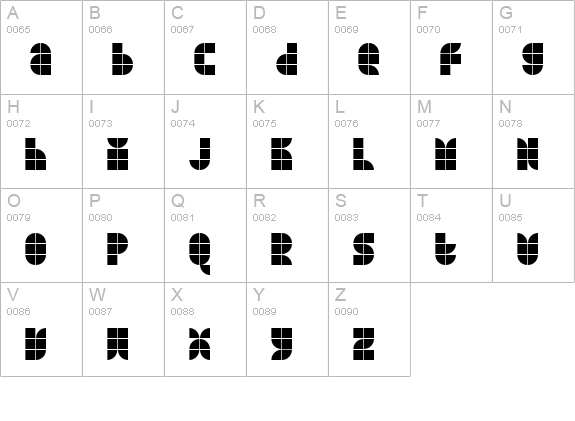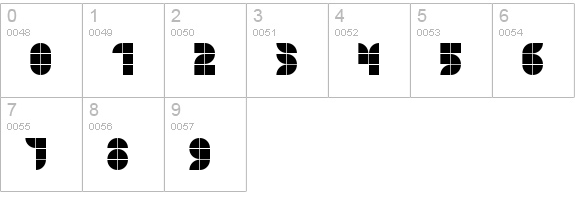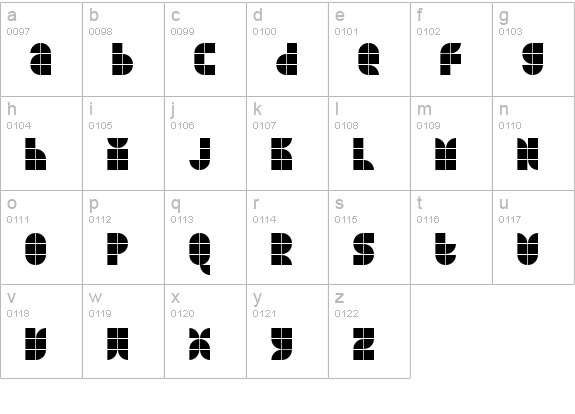
Quarterround Tile Font Details
Quarterround Tile is a stunning font that combines elegance and versatility to create a truly unique typeface. Its distinctive rounded edges and clean lines give it a modern and sophisticated appearance, making it perfect for a variety of design projects. This font is not only visually appealing, but it also offers a wide range of functionality. Whether you're designing a logo, creating a poster, or crafting a beautiful invitation, Quarterround Tile is sure to elevate your project to the next level. One of the best things about Quarterround Tile is that it is absolutely free. Yes, you read that right - this exceptional font can be downloaded for free at FontsMarket.com. This means that you don't have to break the bank to access high-quality typography. With just a few clicks, you can enhance your designs with the elegance and style that Quarterround Tile provides. With its generous character set, Quarterround Tile offers support for multiple languages, making it accessible to a global audience. Its clean and legible design ensures that your message will be easily understood, no matter the language. Whether you're a professional designer or a casual creator, Quarterround Tile is a font that you definitely don't want to miss out on. Its versatility, elegance, and free availability make it a must-have in your font library. So why wait? Head over to FontsMarket.com and download Quarterround Tile today to add a touch of sophistication to your next design project.